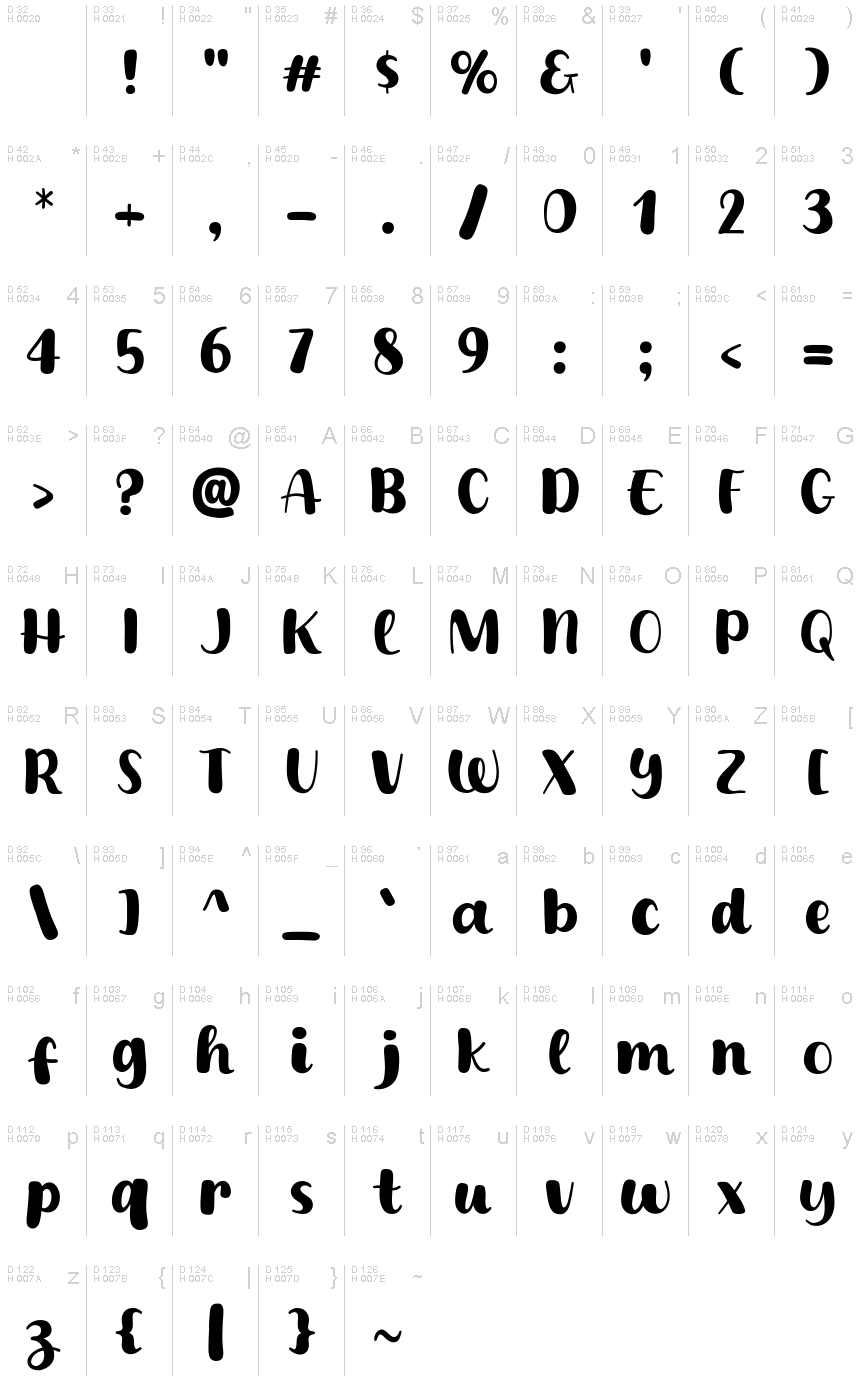
Lazydog
Lazydog leaps off the page with its playful cartoon style, a creation of Khurasan that infuses any text with a sense of fun and whimsy. Its bold strokes are akin to the carefree doodles in the margins of a sketchbook, giving it an approachable and inviting charm. The letters exhibit a dynamic irregularity as if they were hand-drawn, providing designs with a personal touch that digital fonts often lack.
This font finds its home in contexts where personality is key: from children's books to casual party invitations, or any project aiming for a lighthearted and joyful tone. Lazydog's lively character ensures it stands out in displays, headers, and any place where a touch of playfulness is desired.